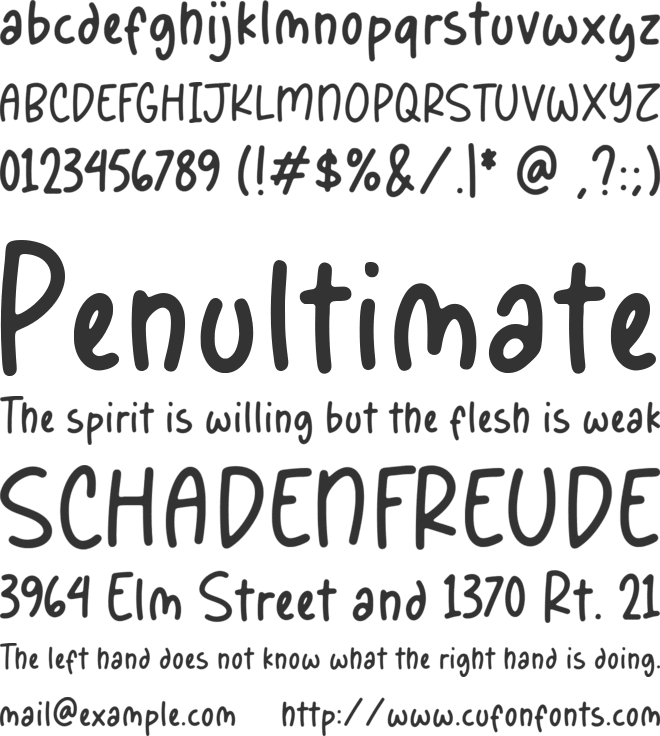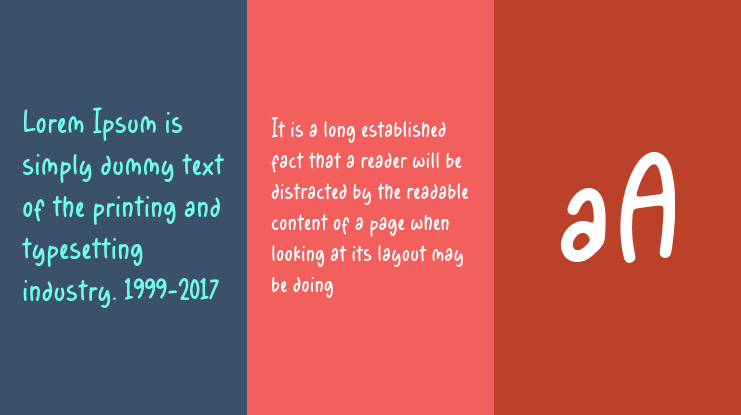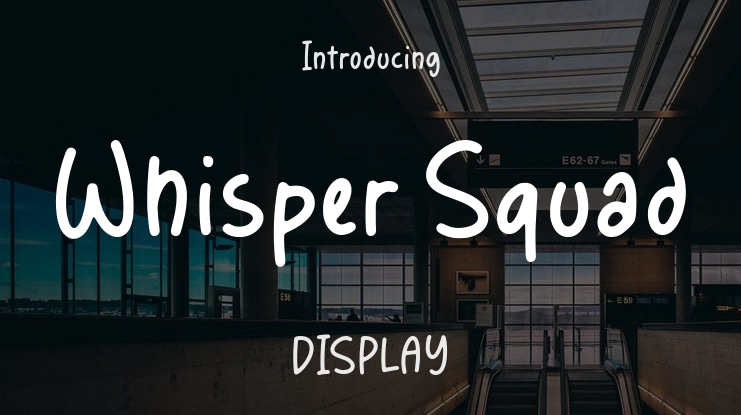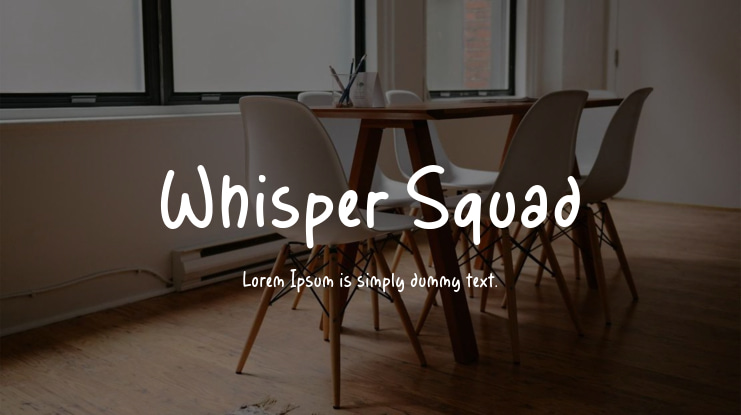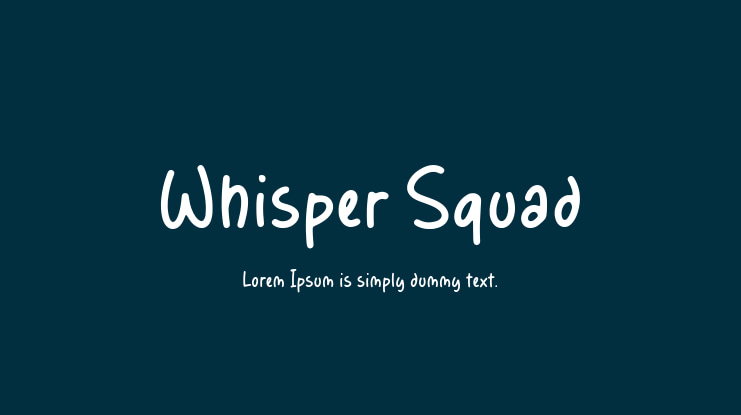
Introducing Whisper Squad, a charming and expressive Quotable Handwriting Font presented by Timurtype Studio. This font is a delightful choice for your design projects, featuring playful and unique letterforms that add a touch of whimsy to your text. The imperfect and organic strokes of Whisper Squad give it a handwritten feel, evoking authenticity and warmth. Its versatile style is perfect for showcasing quotes, inspirational messages, and any text that demands attention. Whether you seek a fun and light-hearted design or a nostalgic and artistic vibe, Whisper Squad offers versatility and character. Infuse your designs with a playful and memorable touch by capturing the essence of handwritten notes with Whisper Squad. The font files include OTF, TTF, and WOFF formats, and also support multilingualism. Whisper Squad Font features a full set of standard alphabet and punctuation. To use this font, please note that it is for personal use only; commercial use requires purchasing a license. For more information on purchasing the full version and commercial licenses, you can visit: [link to purchase]. Corporate use requires a Corporate license. For custom licenses or enquiries, kindly reach out to []. Donations are greatly appreciated through our Paypal account [https://paypal.me/timurtypestd]. Explore more amazing fonts at Timurtype Studio's store [https://timurtype.com]. Thank you for choosing Whisper Squad!